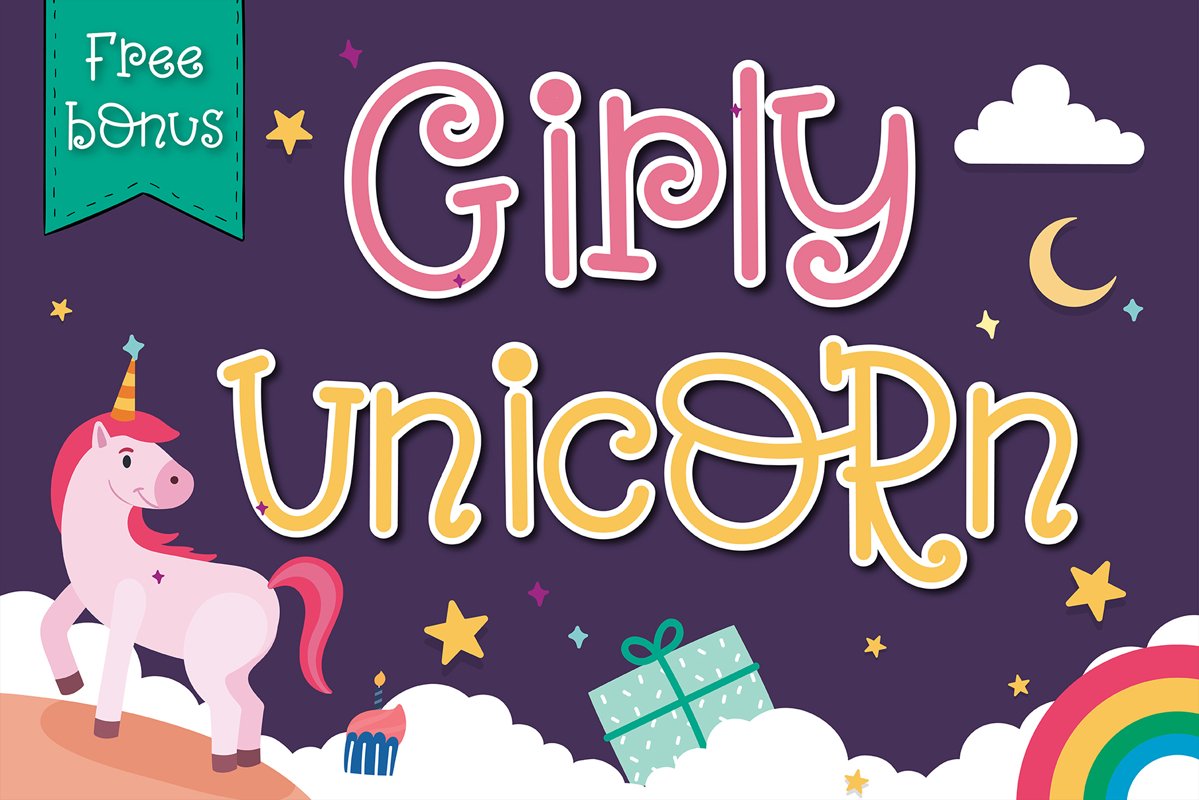
Girly Unicorn font Handwritten- cute kid font Kawaii style
Girly Unicorn font Baby Font- Handwritten Kawaii style. English language only
Are you looking for cute Handwritten font for your project? Then you have come the right land!!
This Font is perfect for kid greeting card, Print t shirt, fashion artworks or just play around. Festival like Valentine's Day, Kid's Party, wedding!!
- Some Punctaution